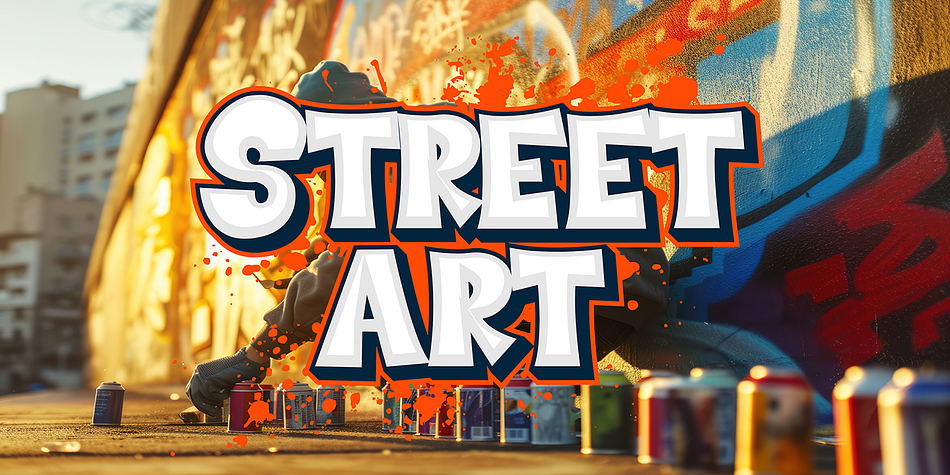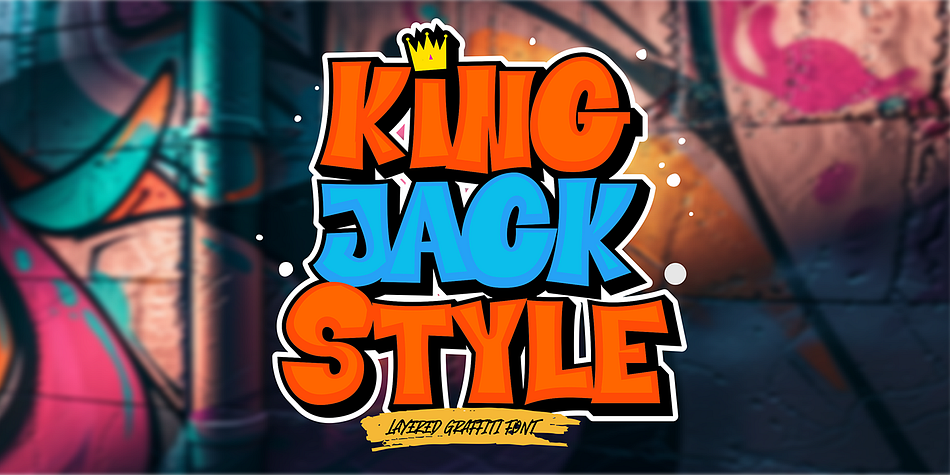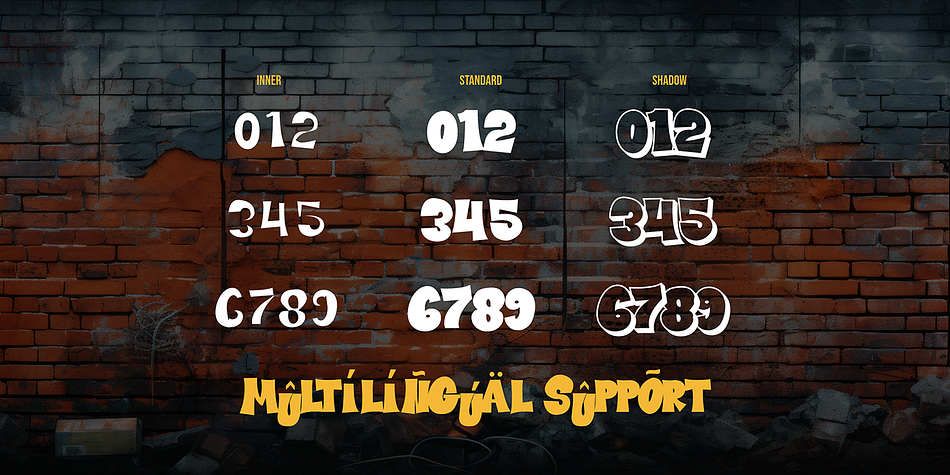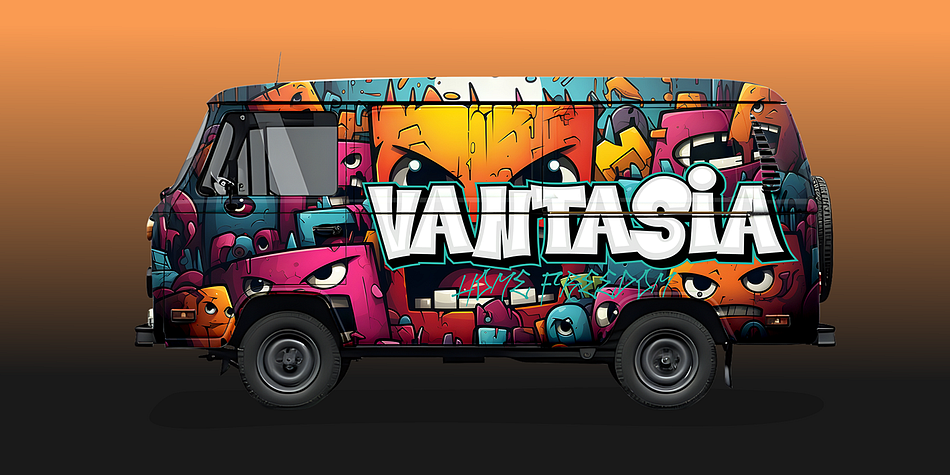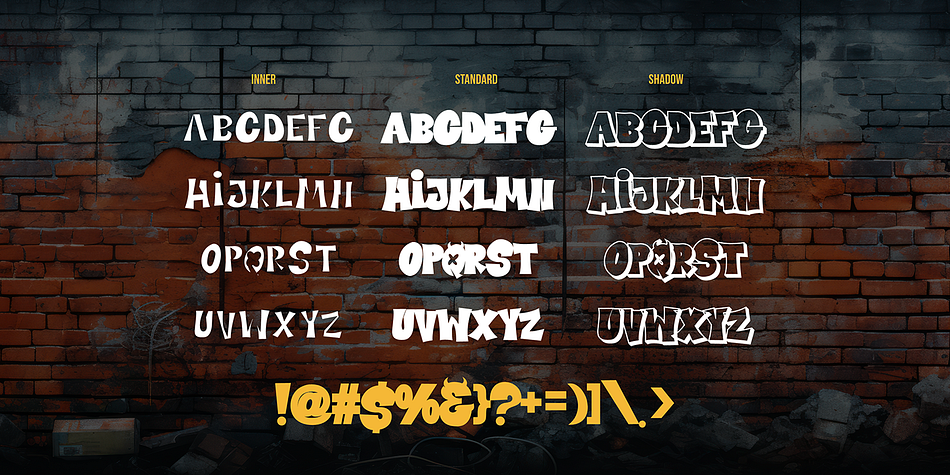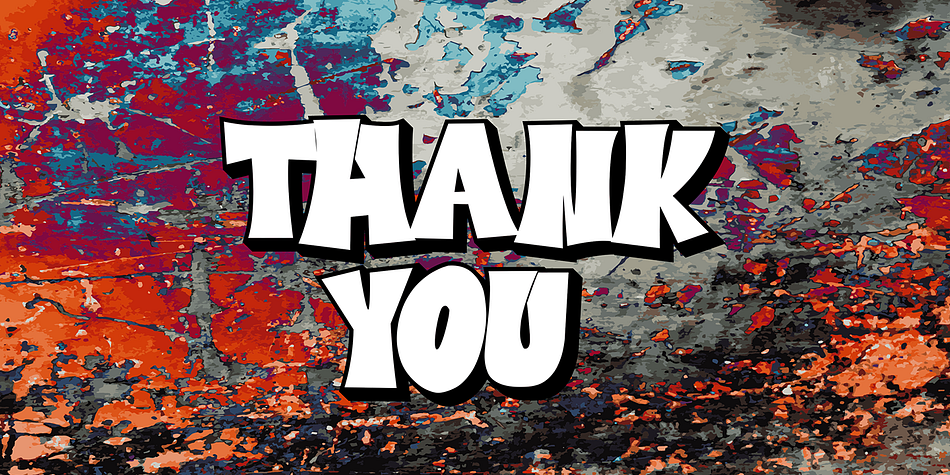
KING JACK STYLE
King Jack Style is a display font family. This typeface has three styles and was published by Cikareotype Studio.
“King Jack Style” is a dynamic 3D layered graffiti font that brings a bold and eye-catching aesthetic to your designs. Each character is meticulously crafted with three distinct layers: normal, inner, and shadow. This multi-layered approach creates a striking 3D effect, adding depth and dimension to your text, making it appear as though it’s leaping off the page. Perfect for urban-themed projects, street art designs, posters, album covers, and any creative work that demands a powerful and vibrant typographic presence, “King Jack Style” ensures your message is delivered with impact and style. Its versatility and unique design elements make it an excellent choice for anyone looking to add a touch of urban flair and artistic sophistication to their work.
Foundry Cikareotype Studio